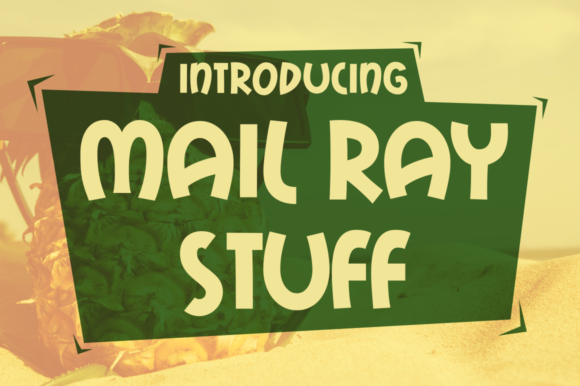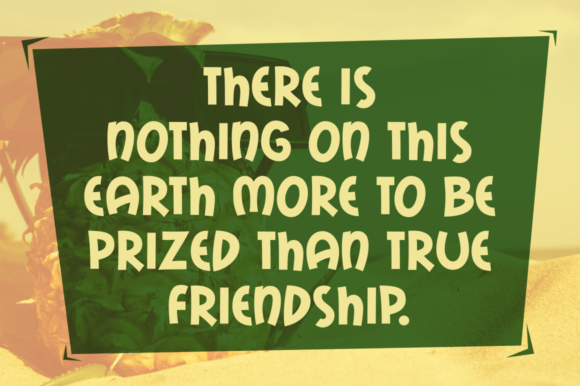
Mail Ray Stuff
About Mail Ray Stuff Font
Mail Ray Stuff is a fun sans serif display font, perfect for giving your designs a child-like and youthful quality. This free font is made available by the talent at Typodermic.